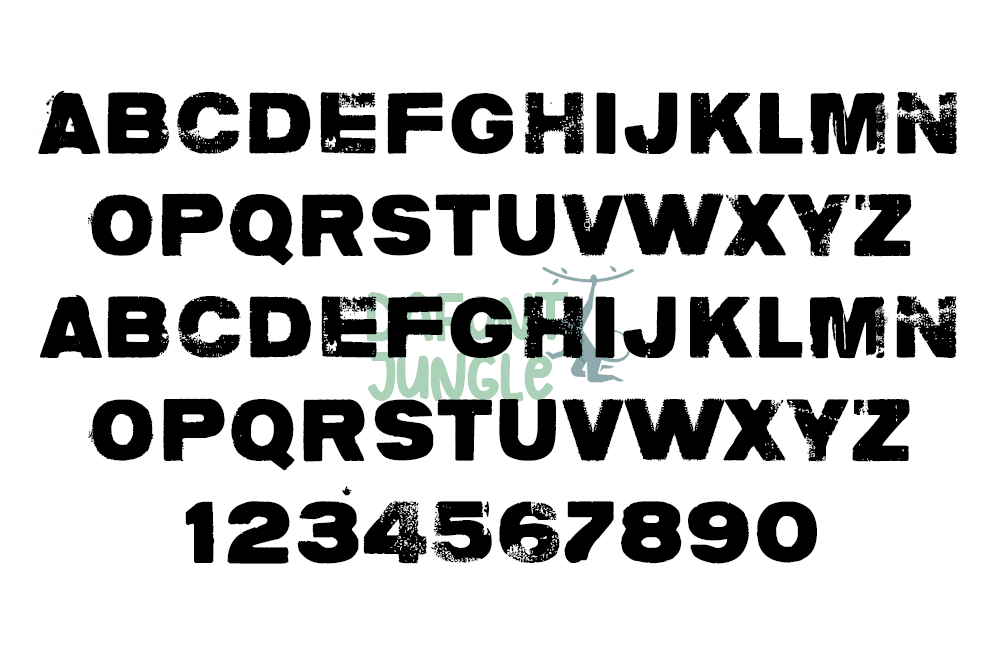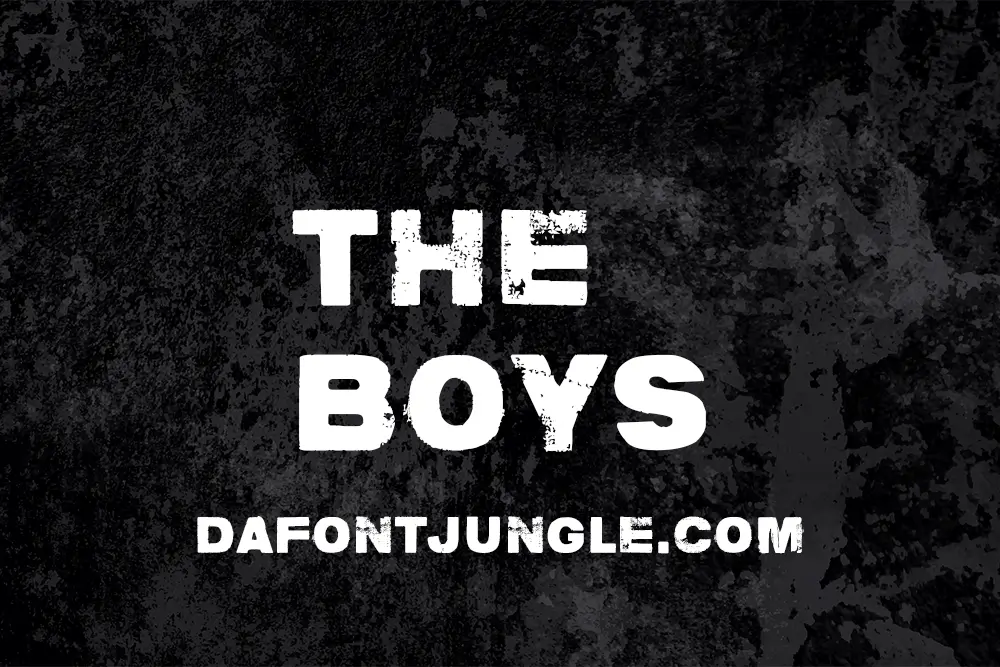
The Boys Font – Bold and Gritty Display Style
Looking to capture the raw and rebellious style of The Boys TV series? While the official logo uses a custom font, you can still recreate that intense look using similar bold display fonts. These fonts feature heavy, distressed letterforms that reflect the show’s gritty tone and high-impact storytelling.
Whether you’re designing fan art, a poster, or edgy branding, these alternatives deliver the punch you need. For the closest match, look for fonts with rough textures, uneven strokes, and bold weight.
Where to Use It
– Movie posters
– YouTube thumbnails
– Merchandise designs
– Edgy branding projects
– Title cards and graphics
Pro Tip
Pair this style with dark backgrounds and red accents for a look that instantly channels The Boys vibe.